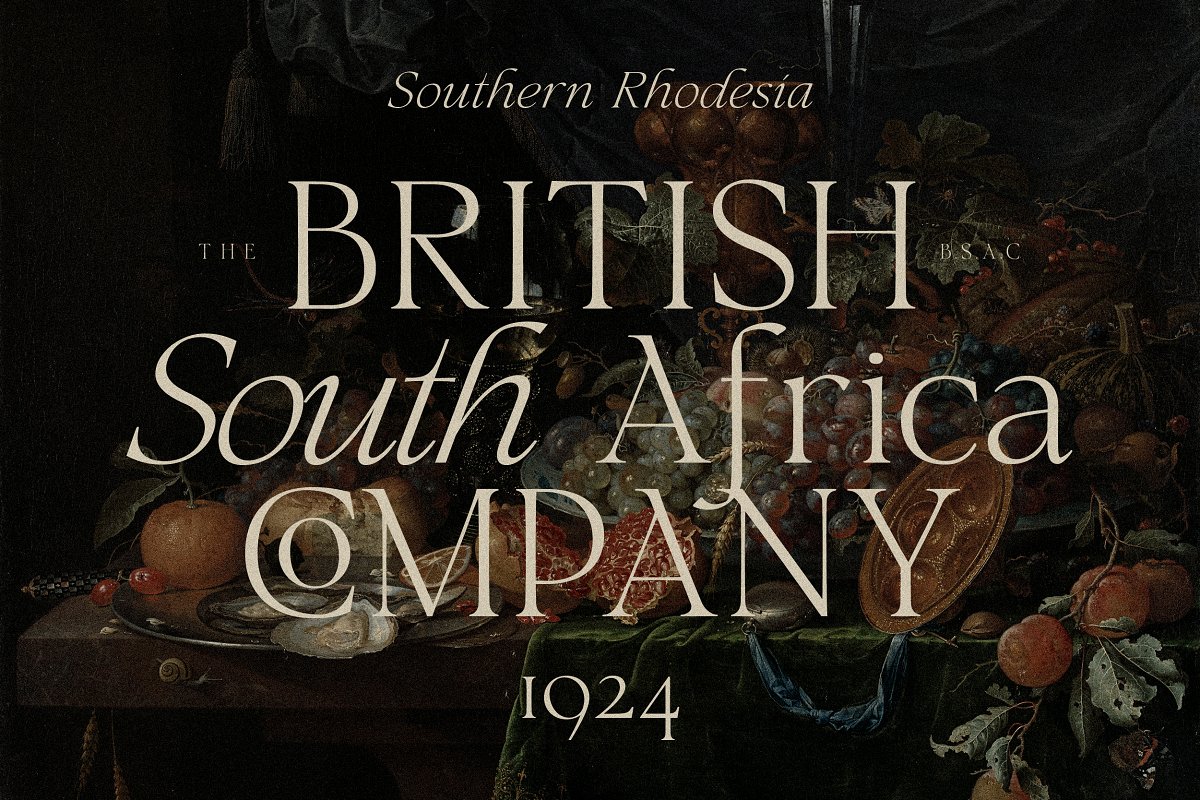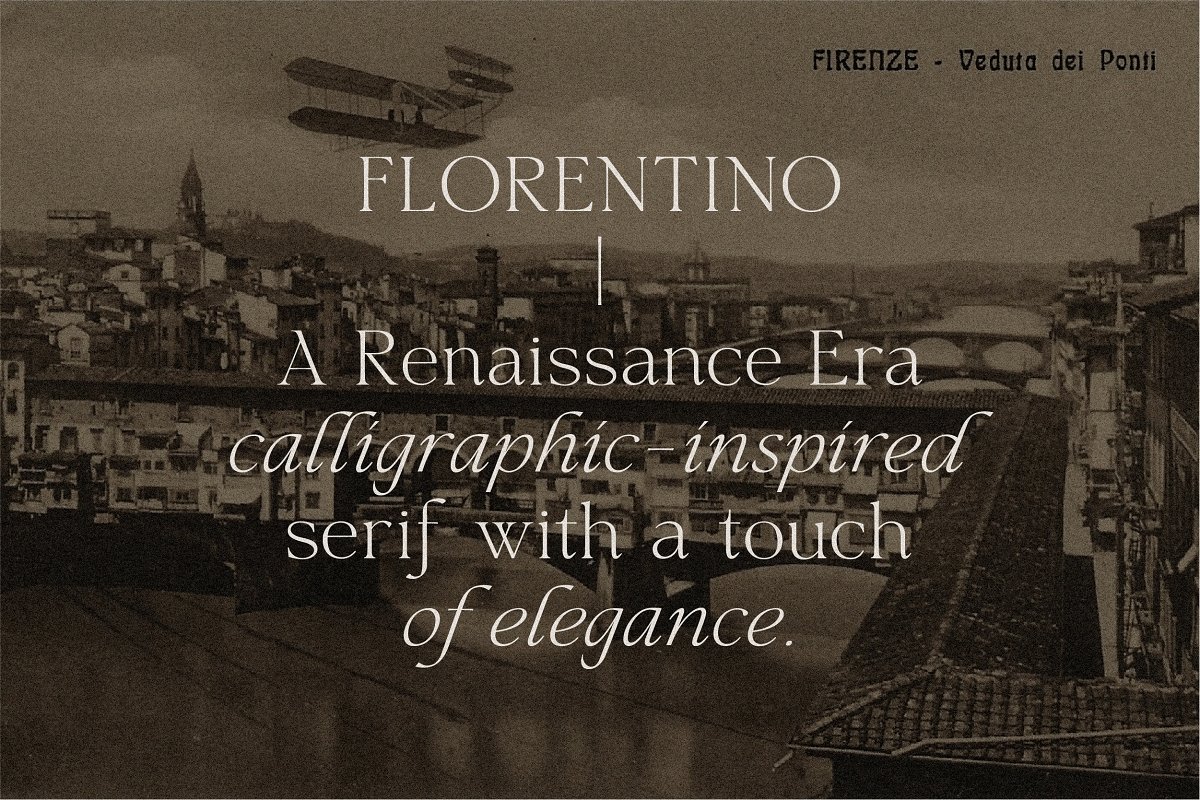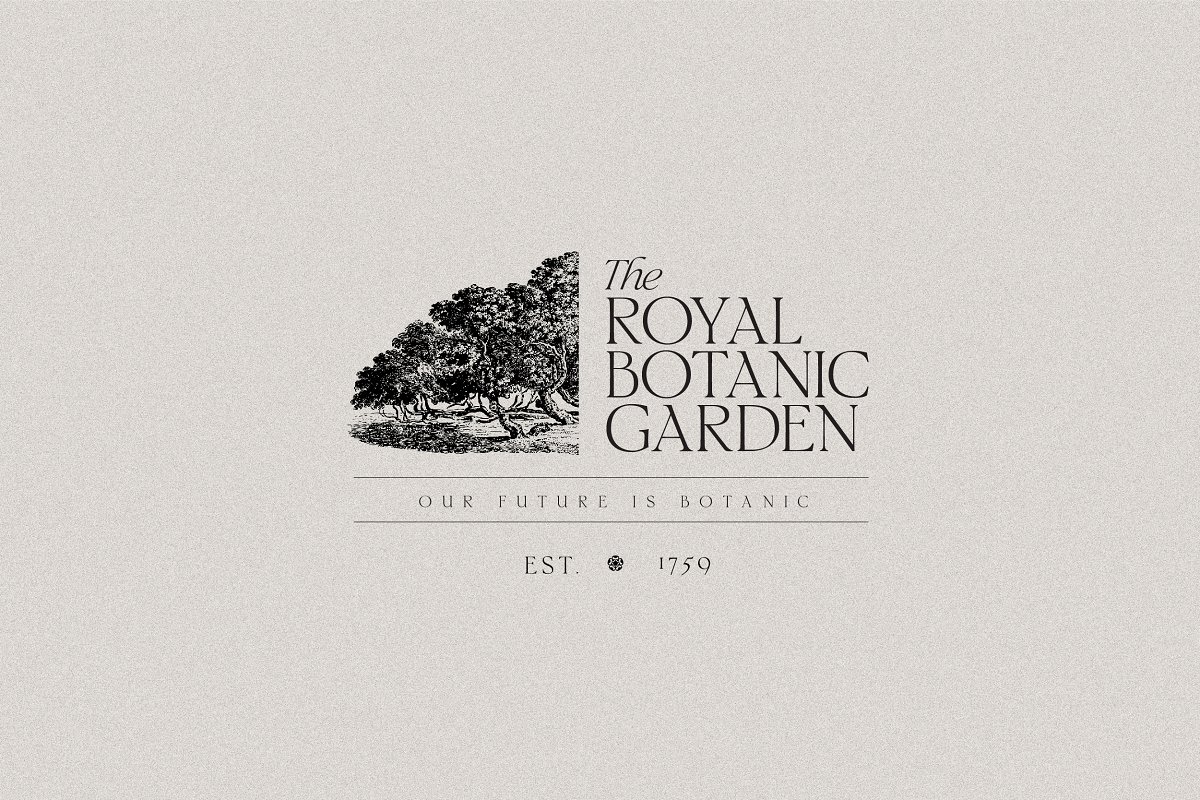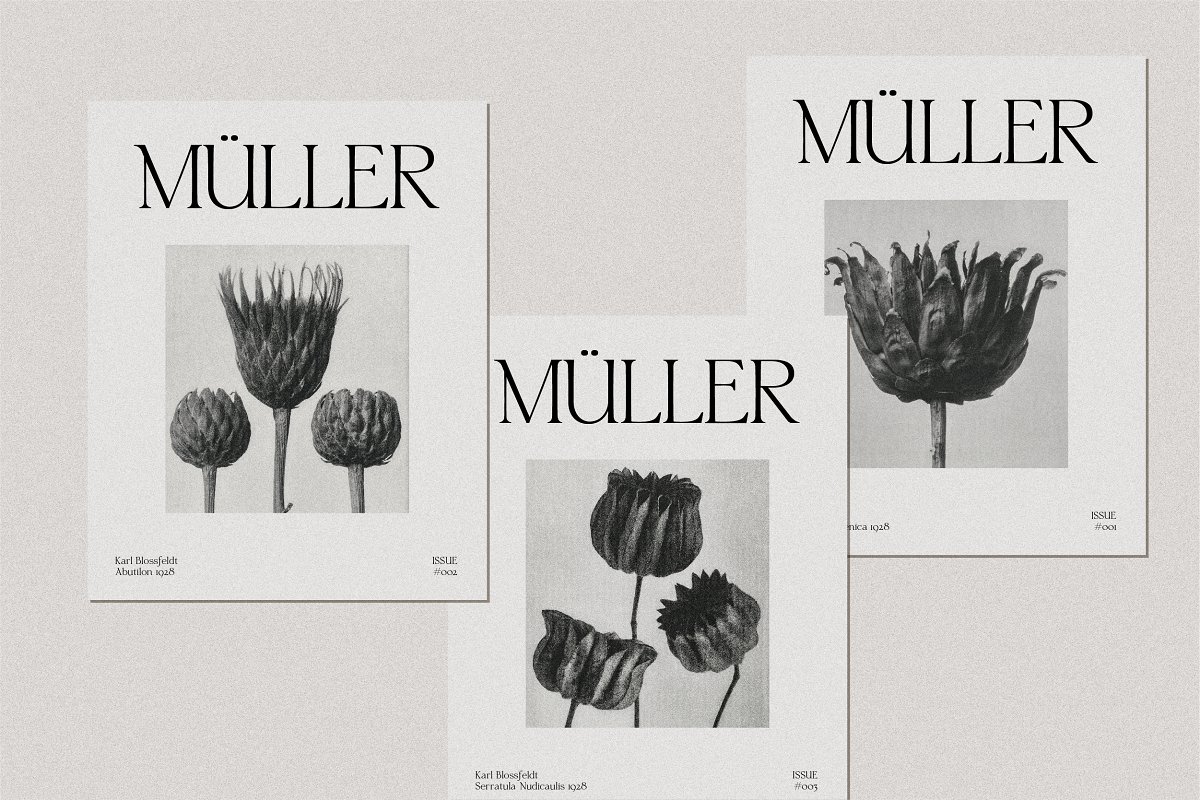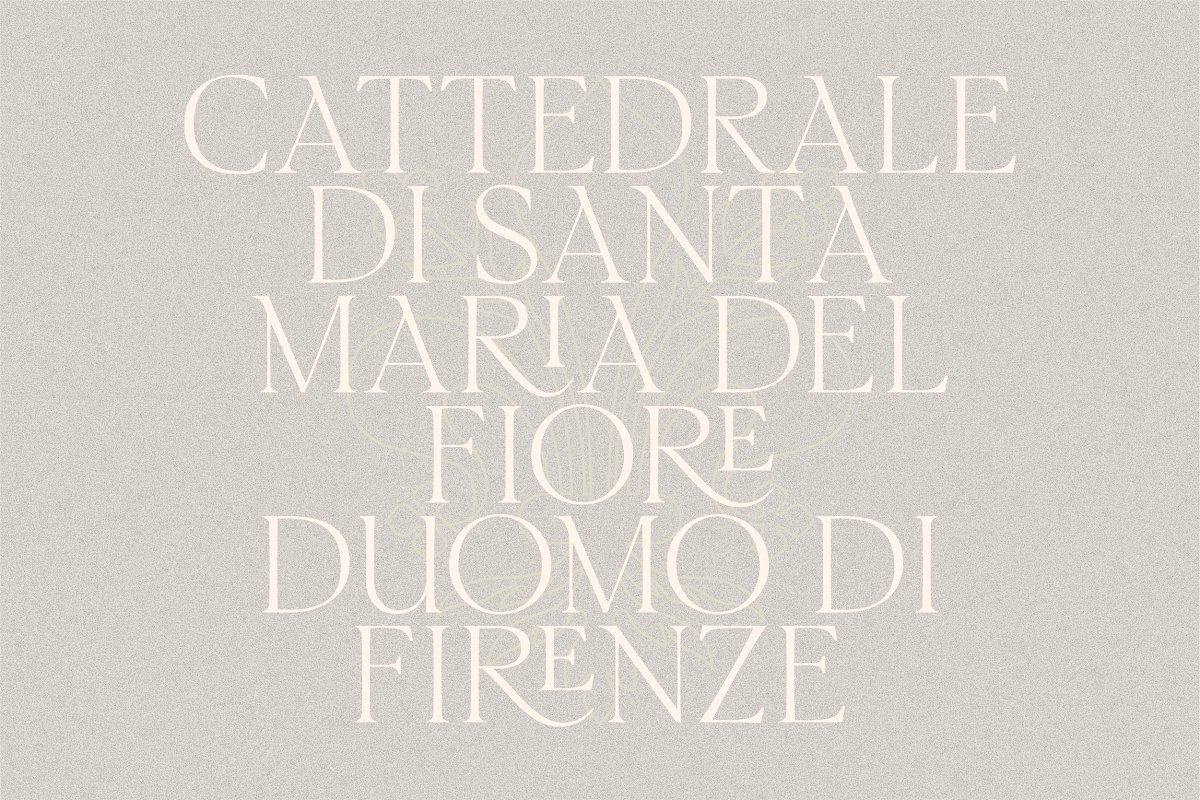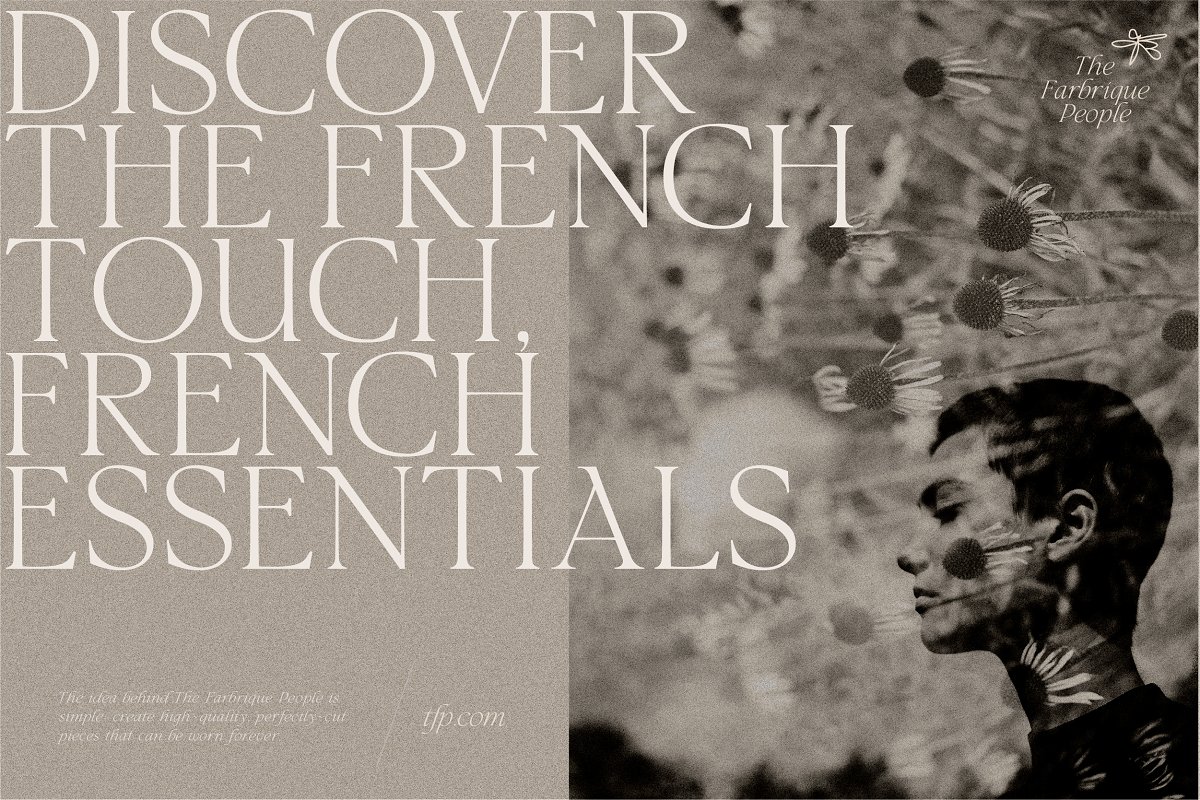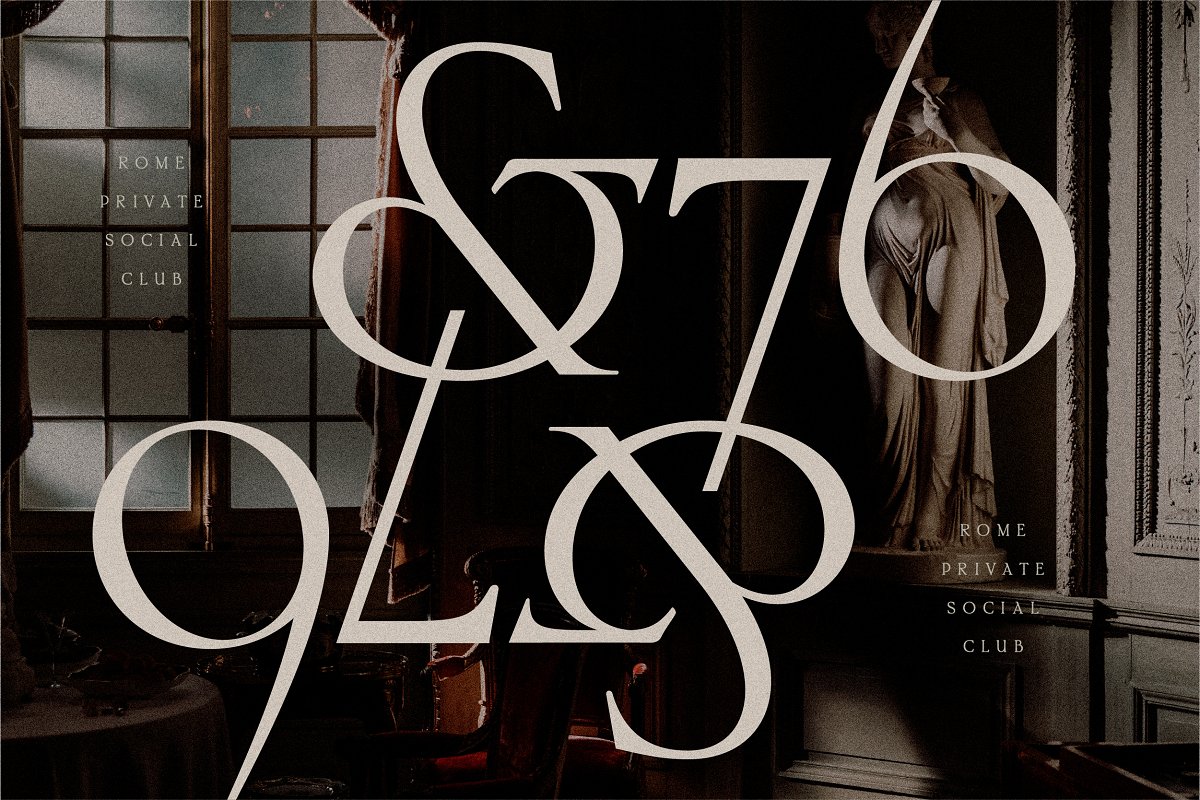
About the Florentino Calligraphic Serif
Florentino – a Renaissance Era calligraphic-inspired serif with a touch of elegance, Specially designed for retro, elegant projects, Florentino is perfectly suitable for creating classic design such as logos, packaging, editorial, and more, A SUMMARY OF WHAT’S INCLUDED:HV Florentino Regular Font (, ttf, , otf & , woff)HV Florentino Italic Font (, ttf,